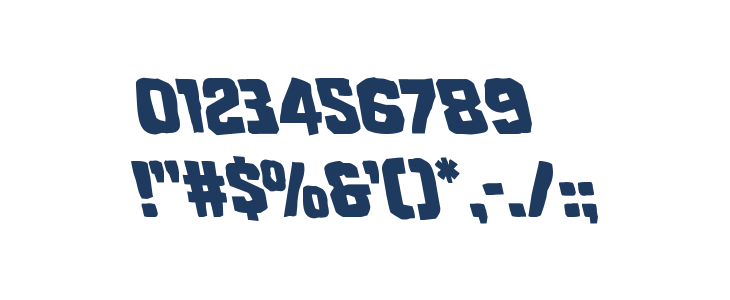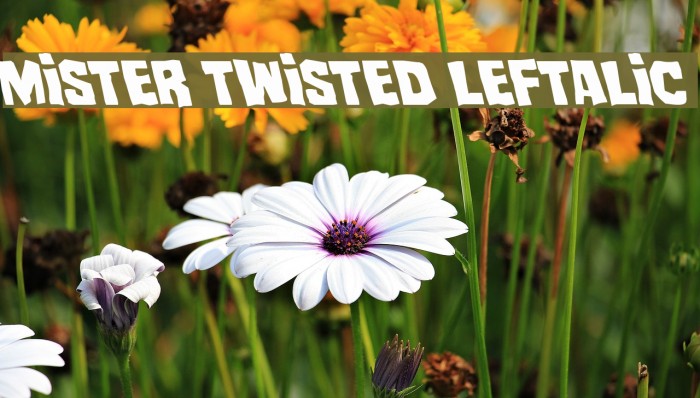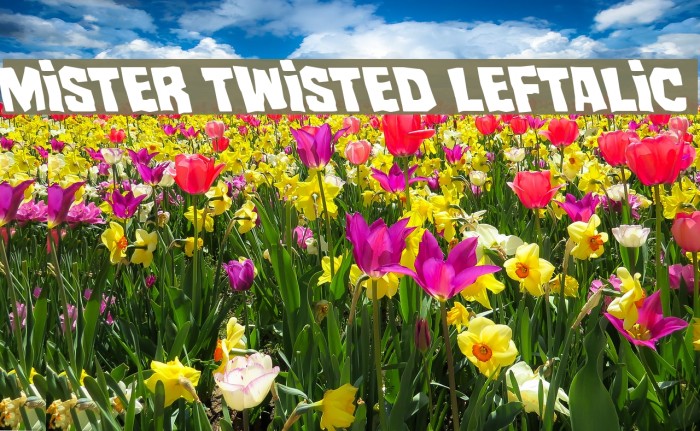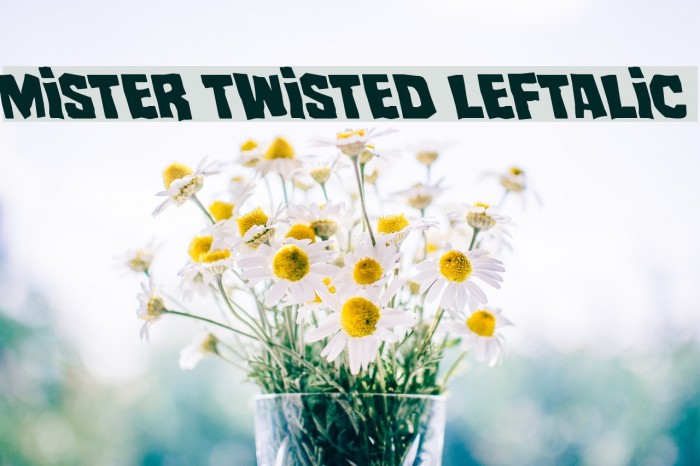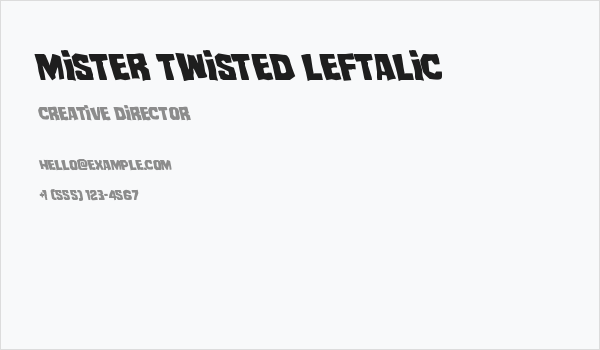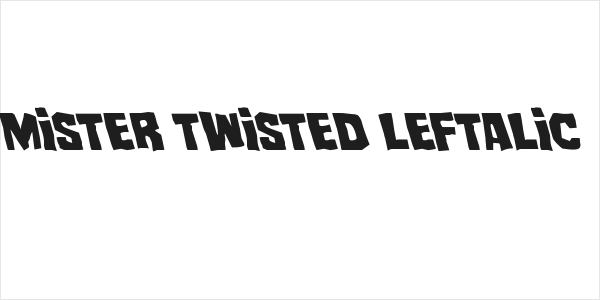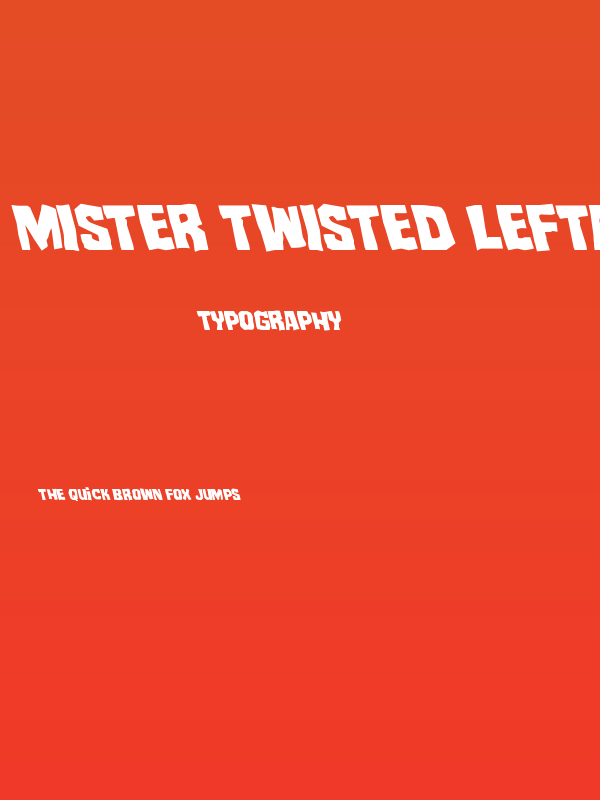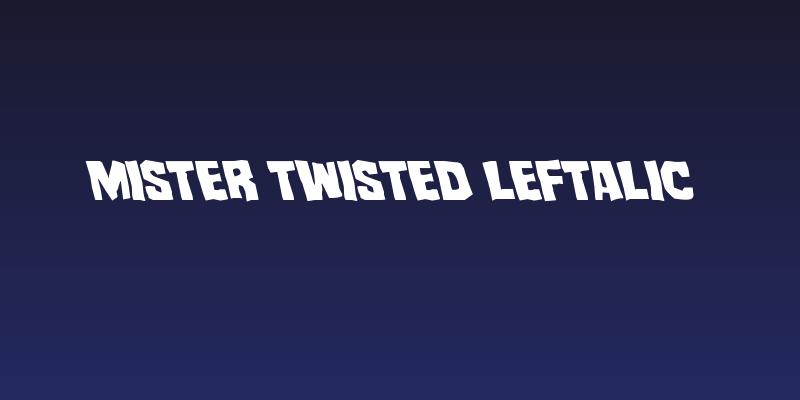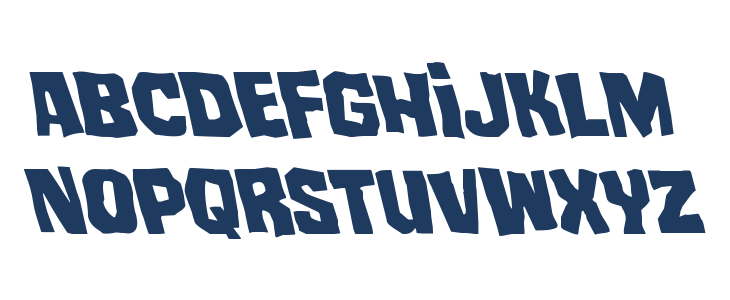
Mister Twisted Leftalic Font
Mister Twisted Leftalic Description
This font features a bold and dynamic style with a twisted, distorted appearance that gives it a unique and edgy look. The characters are heavily stylized, with sharp angles and irregular shapes, creating a sense of movement and energy. The uppercase and lowercase letters maintain a consistent design, while the numbers and special characters follow the same twisted aesthetic. This font is highly decorative and stands out due to its unconventional form, making it suitable for eye-catching designs.
| Overall Style | Modern, Edgy |
| Proposed Projects | Ideal for posters, album covers, video game graphics, and any project needing a bold, eye-catching typeface. |